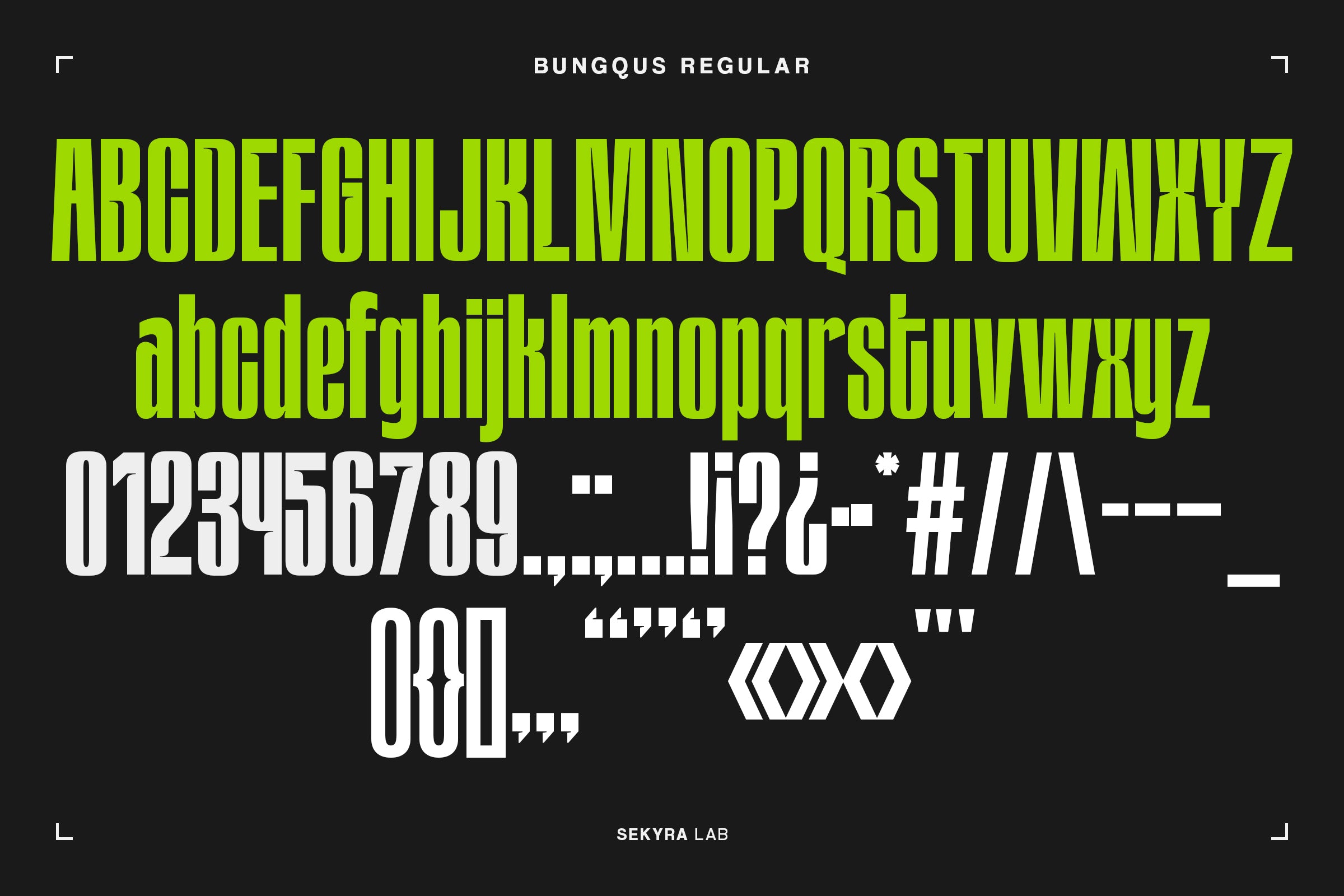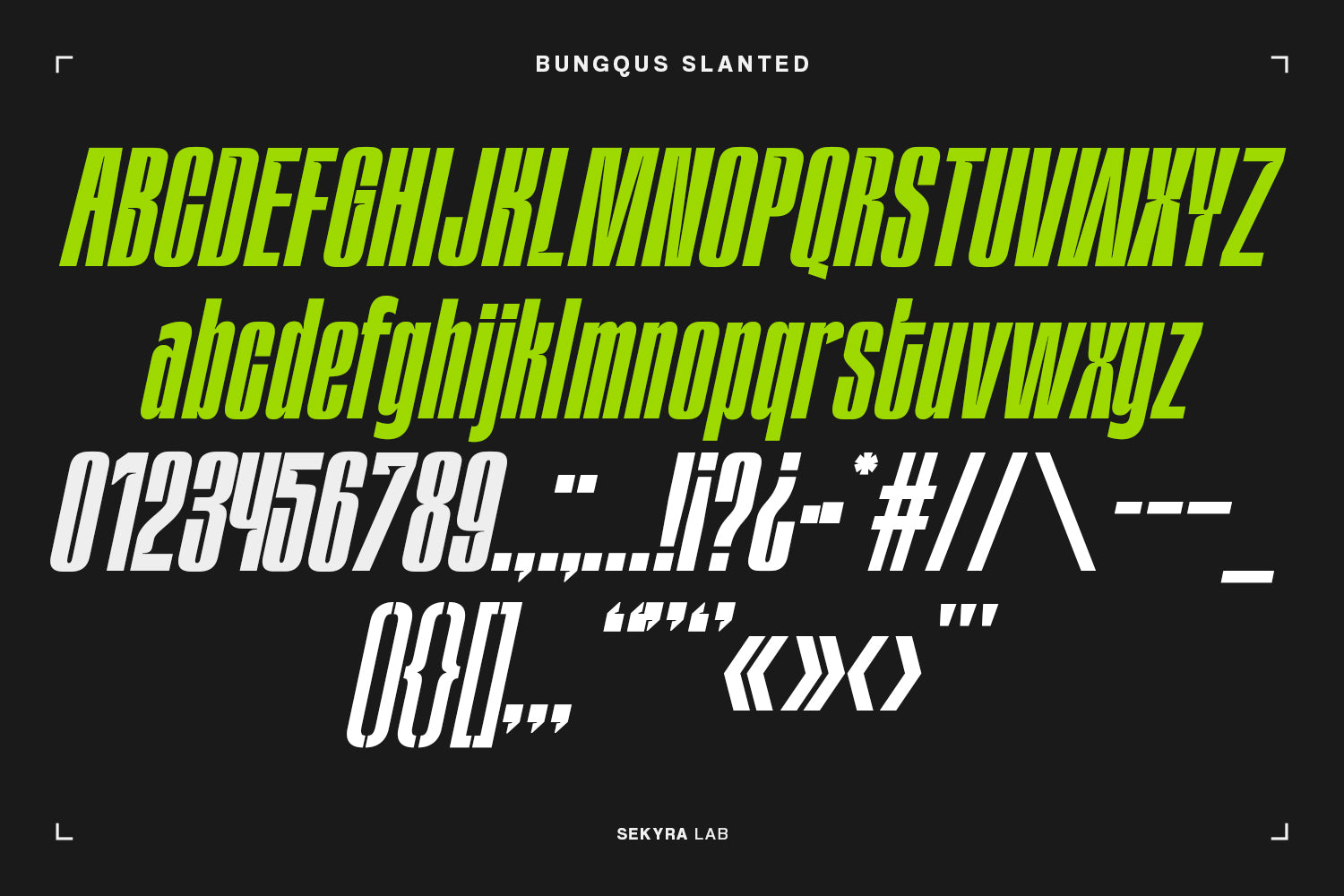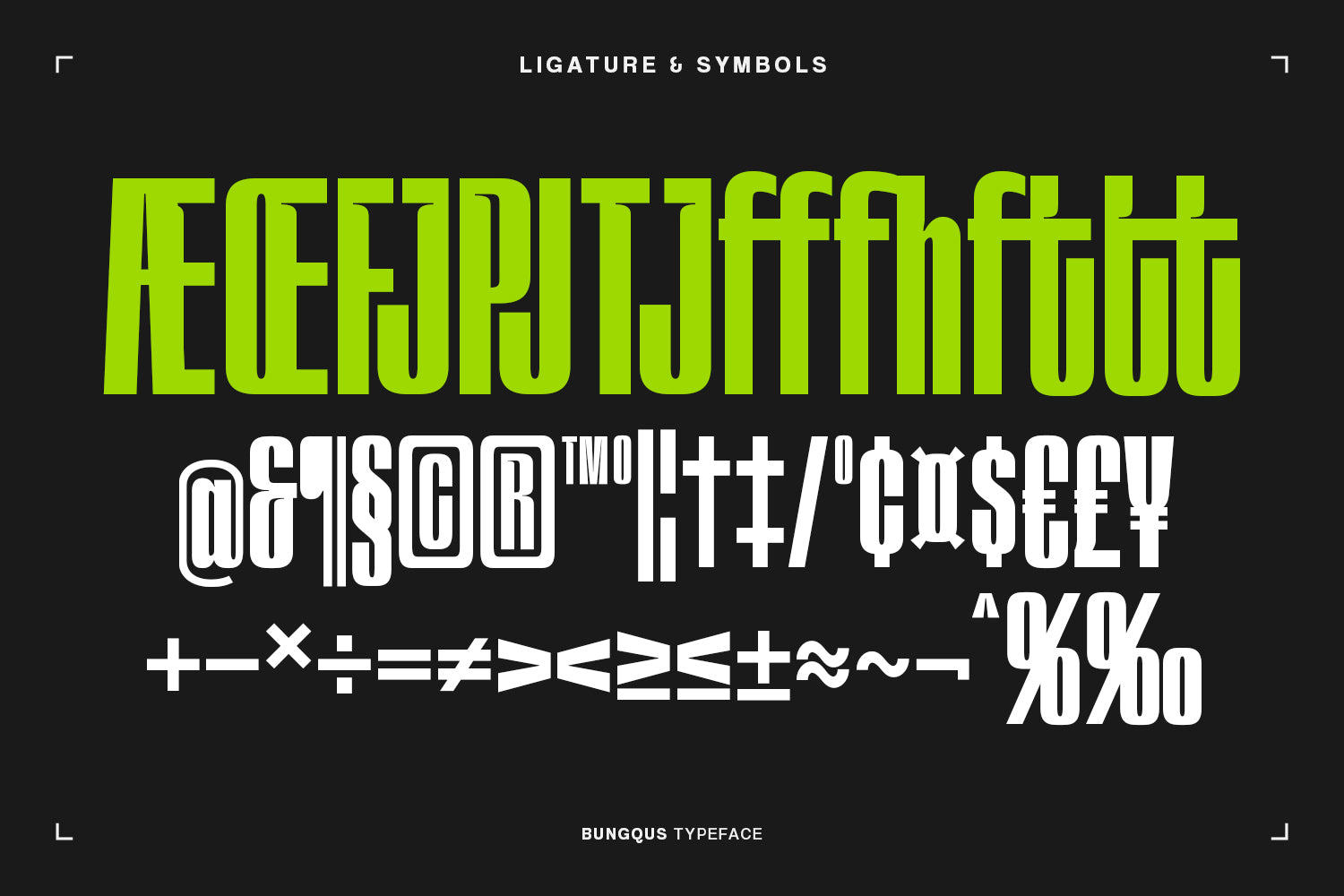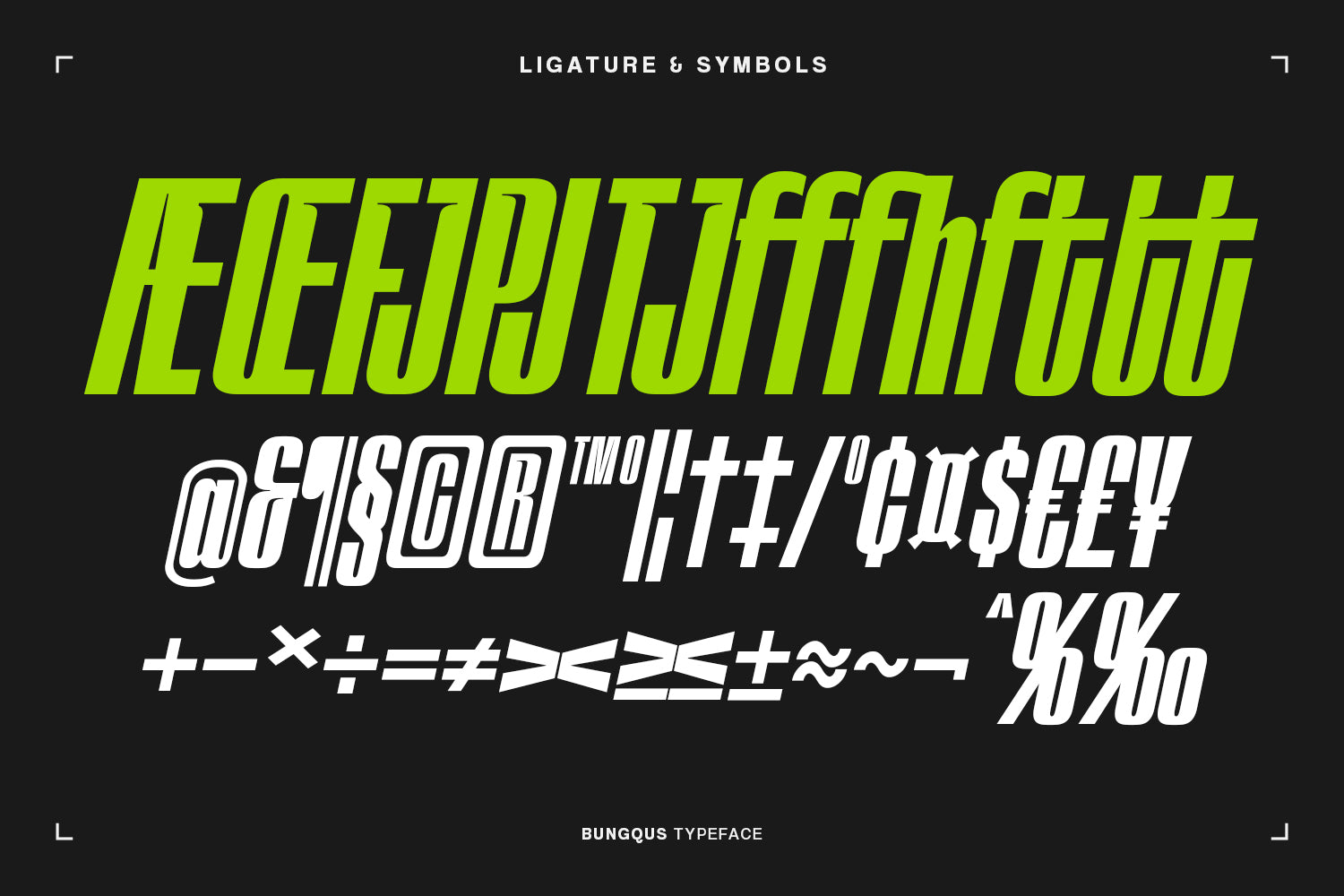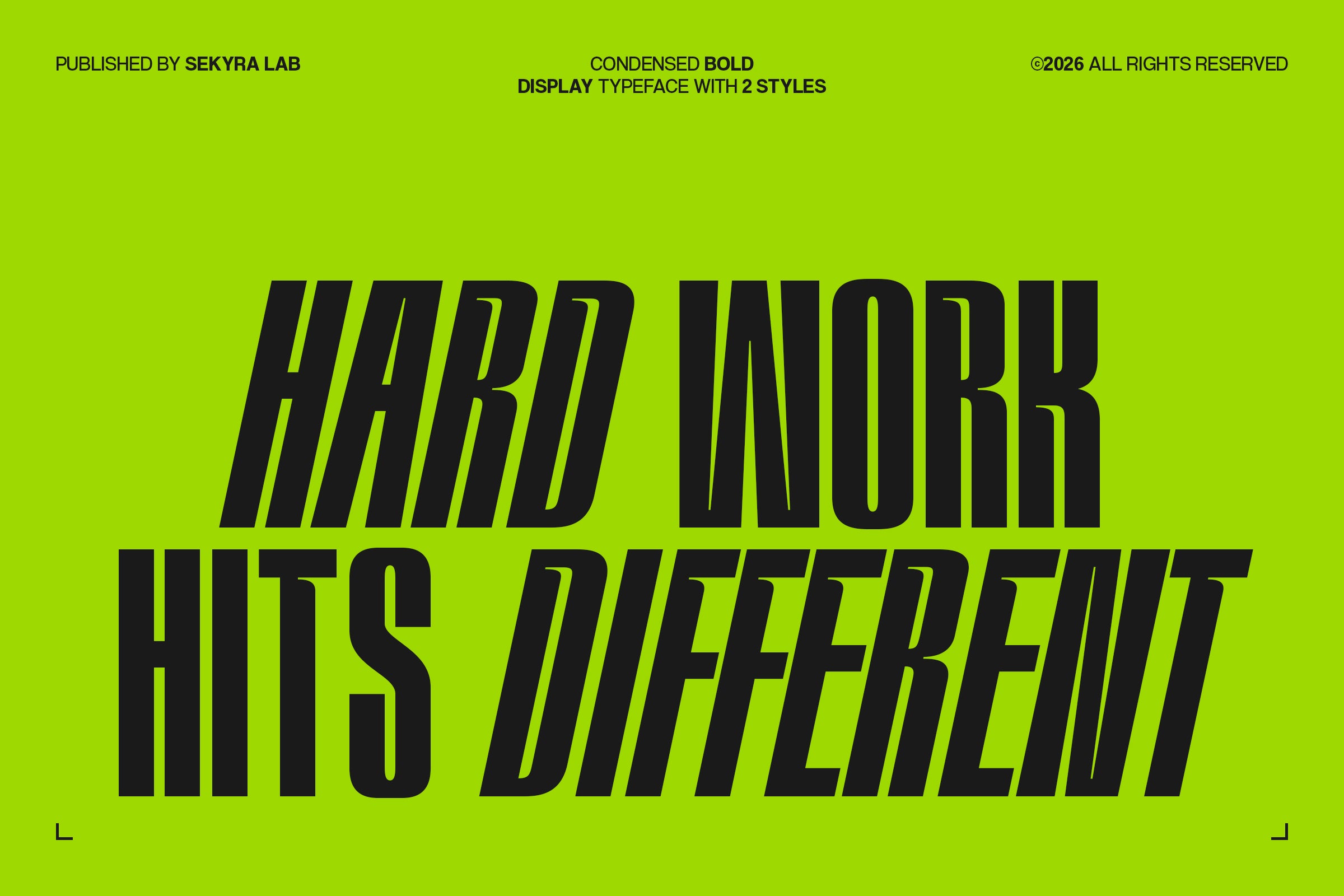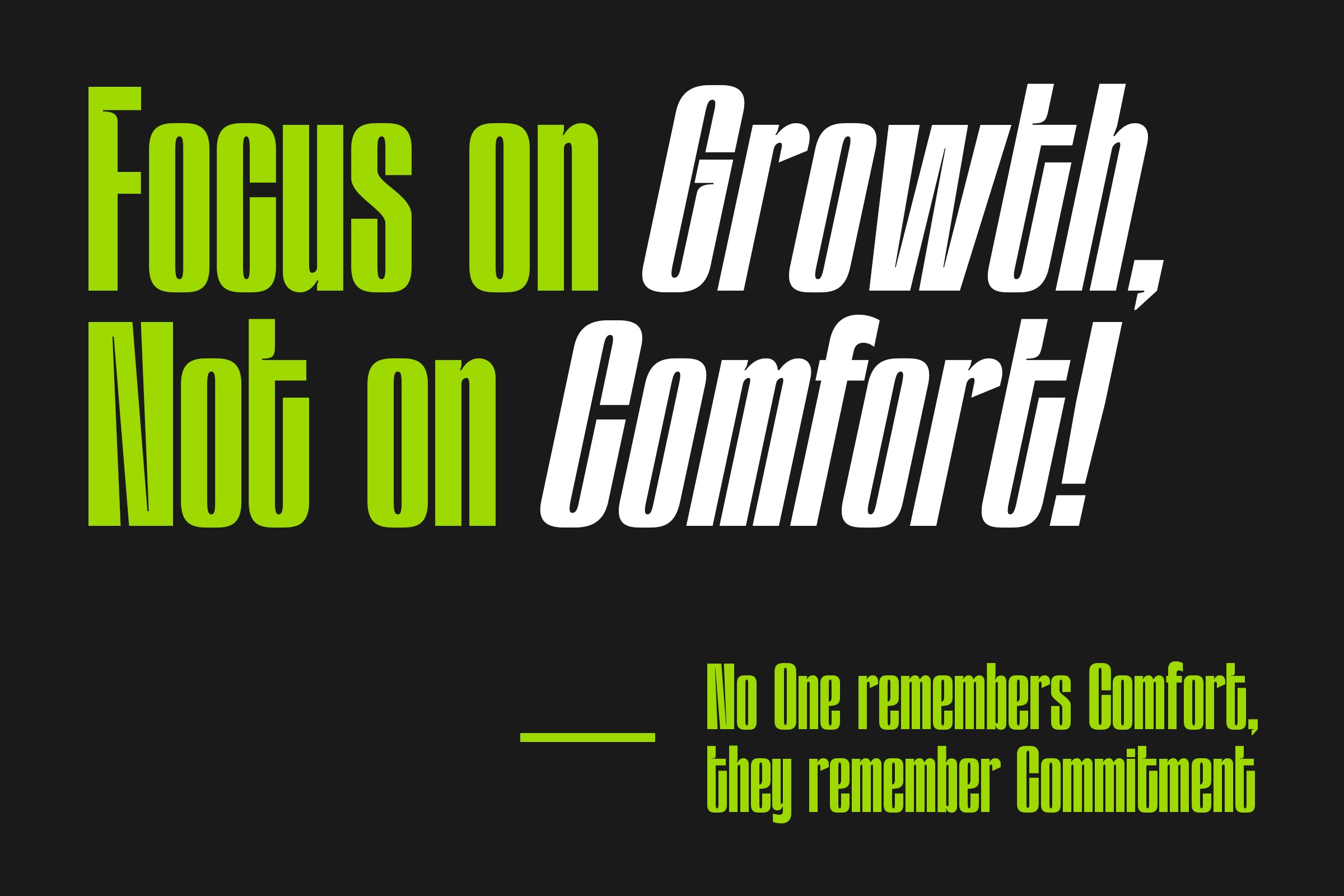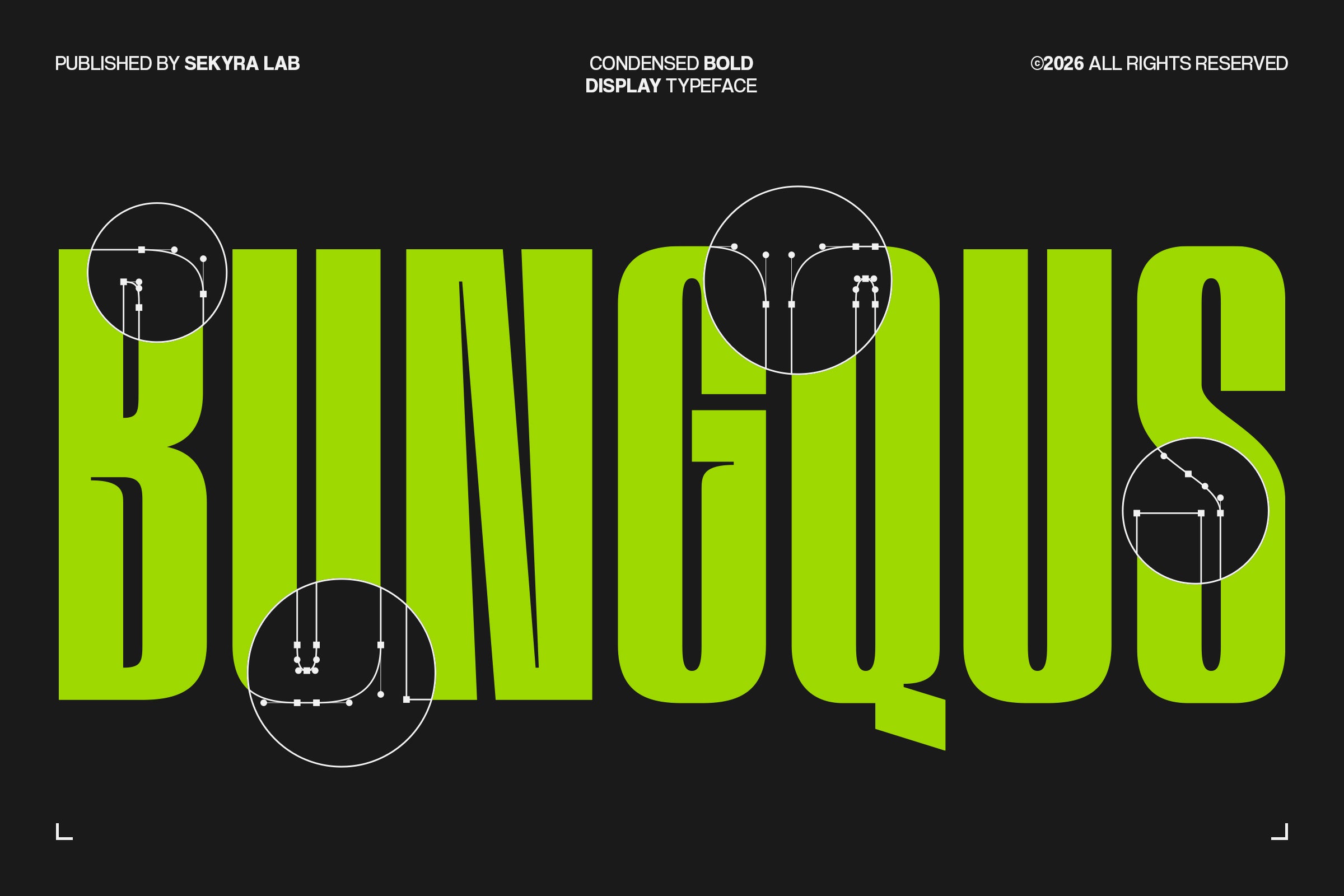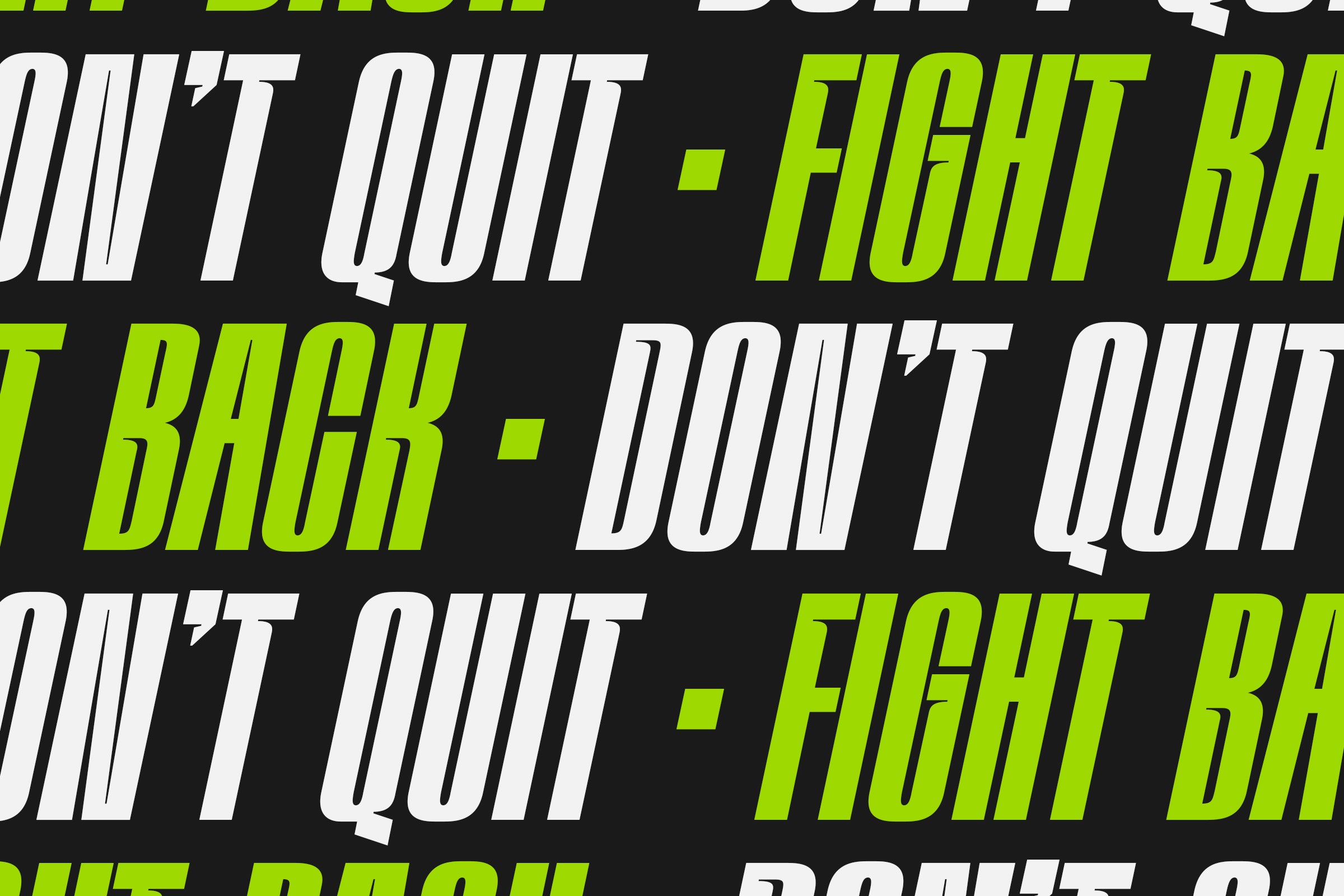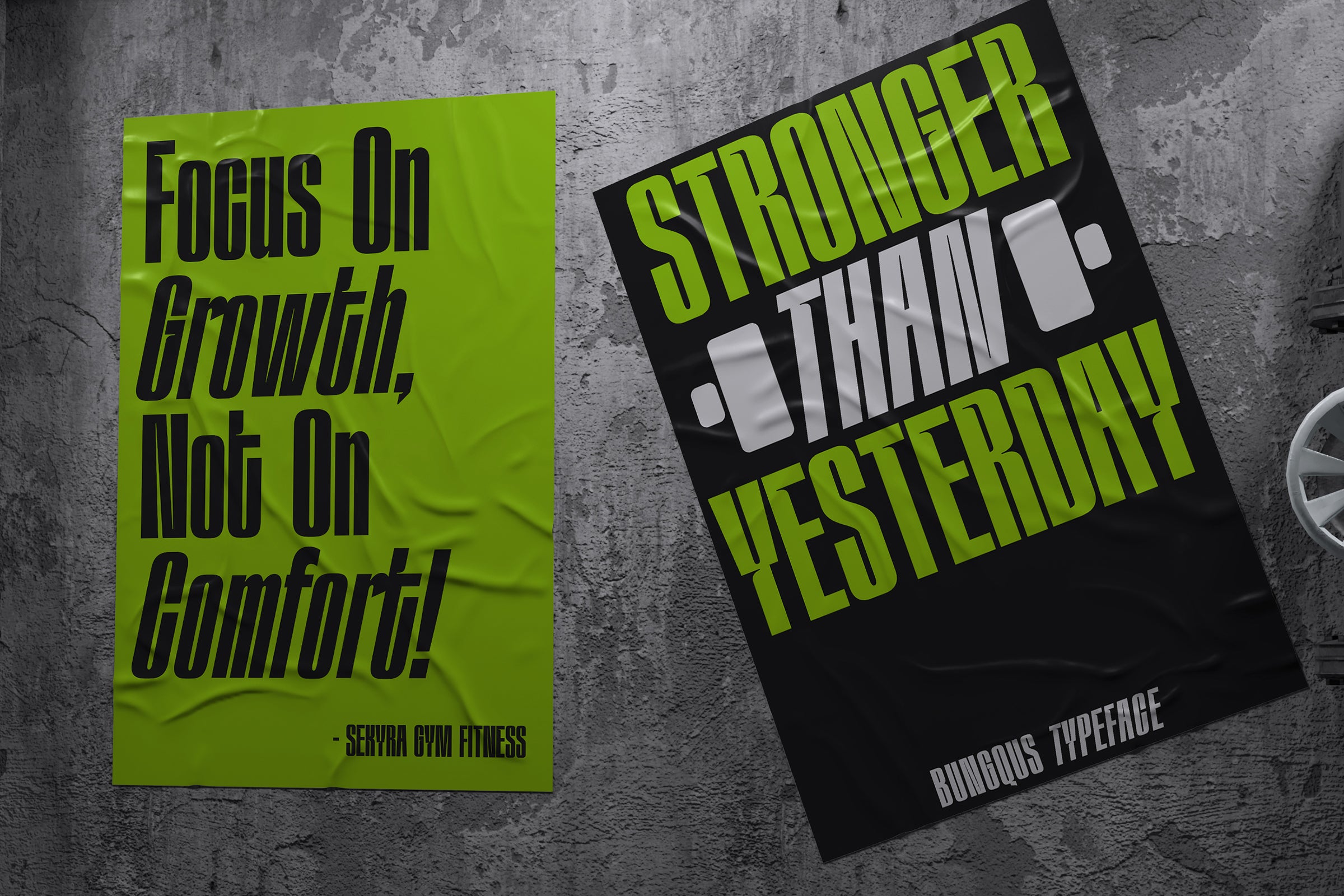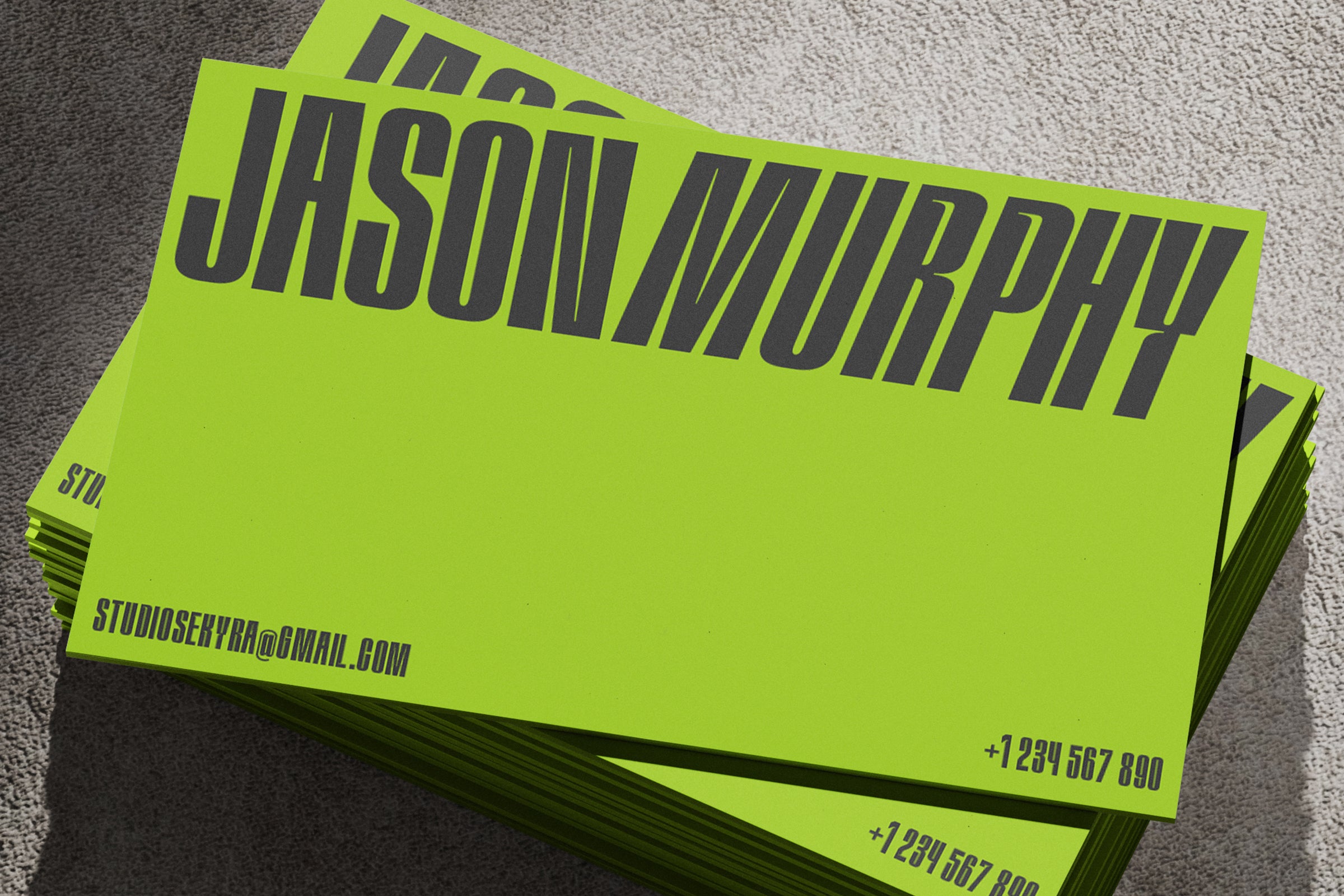
Bungqus Condensed Bold Display Typeface
Sekyra Lab
Bungqus is a bold condensed display typeface designed to deliver a powerful visual presence. With tall proportions, tight spacing, and distinctive cuts, this typeface expresses a confident, modern attitude that stands out instantly.
Bungqus comes in two styles: Regular and Slanted, offering flexibility for both clean compositions and dynamic, forward-leaning layouts. Its unique letter construction makes it ideal for eye-catching headlines, posters, editorial designs, branding, streetwear graphics, album covers, and digital campaigns.
The strong vertical rhythm, combined with subtle character irregularities, creates striking visual tension while maintaining solid readability across various display sizes.
To further expand its creative potential, Bungqus includes 3 professionally crafted text effect styles, allowing designers to quickly transform typography into impactful visuals for both print and digital use.
Whether used in its clean form or enhanced with effects, Bungqus is built to command attention.
Font Styles
• Regular
• Slanted
Bungqus is a bold condensed display typeface characterized by tall proportions, tight spacing, and distinctive cuts, designed for strong visual impact. It includes font files in TTF, OTF, WOFF, and WOFF2 formats, along with three editable text effects for versatile typography applications.